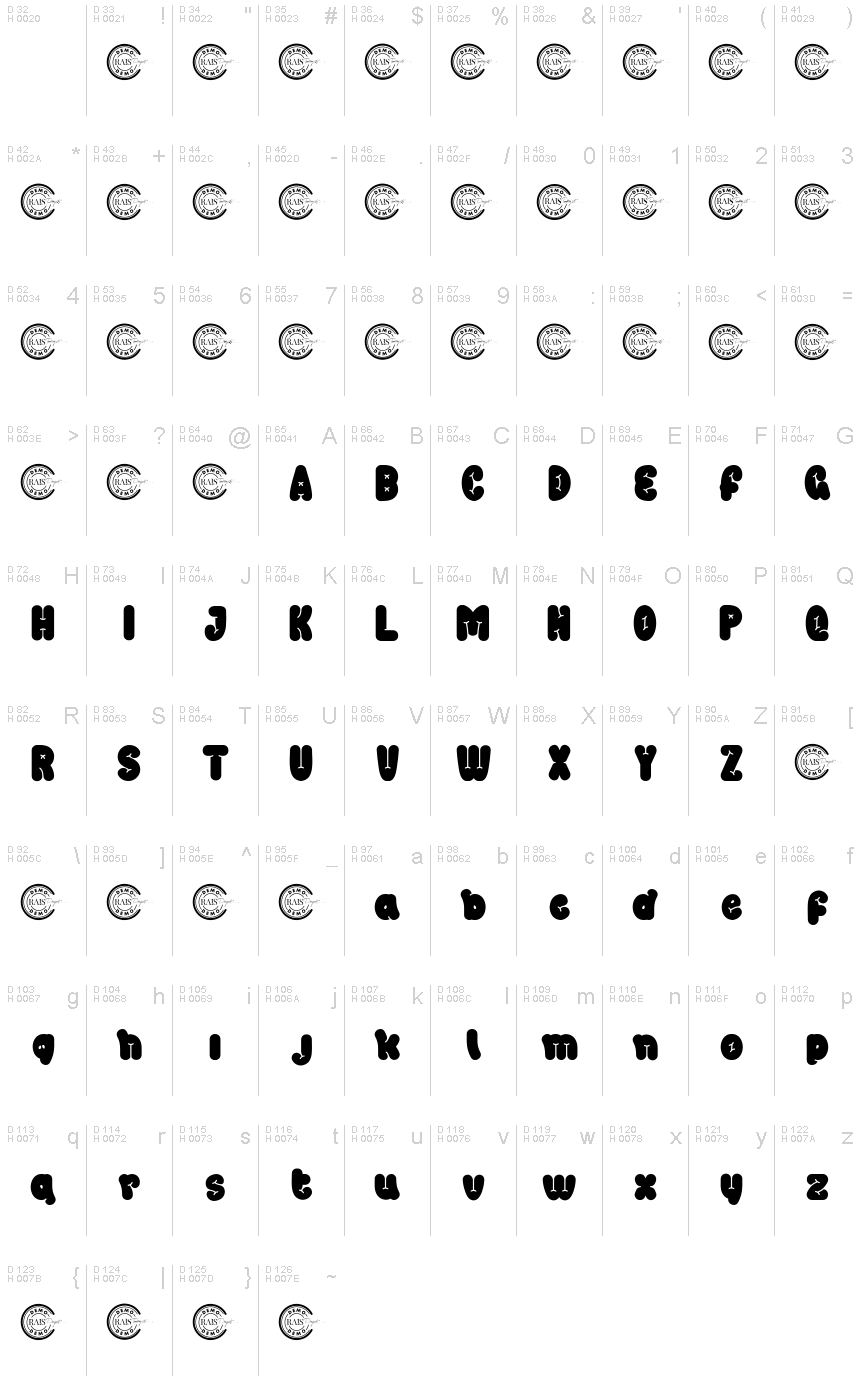
Sweet Table Demo
Sweet Table is a bold, cartoon-inspired font that exudes a playful and whimsical charm. Designed by RaisProject, this display typeface boasts a distinctive aesthetic, with its rounded, almost bubbly letterforms and a delightful balance of thick and thin strokes.
The font's exaggerated proportions and expressive character make it an ideal choice for a variety of design applications, from children's books and packaging to branding and advertising. Its strong, confident presence lends itself well to attention-grabbing headlines, while its fun, lighthearted nature can also be leveraged for more casual, playful contexts.
Whether used in isolation or as part of a larger typographic composition, Sweet Table promises to add a touch of personality and visual interest to any project.